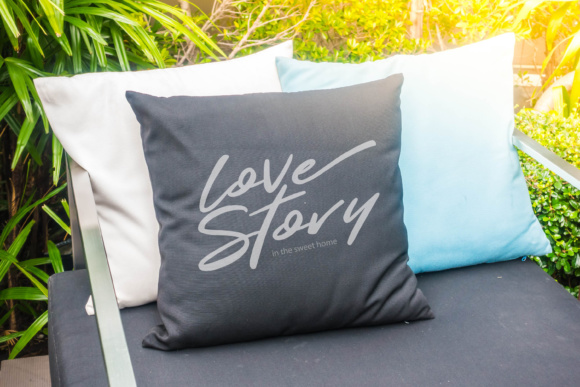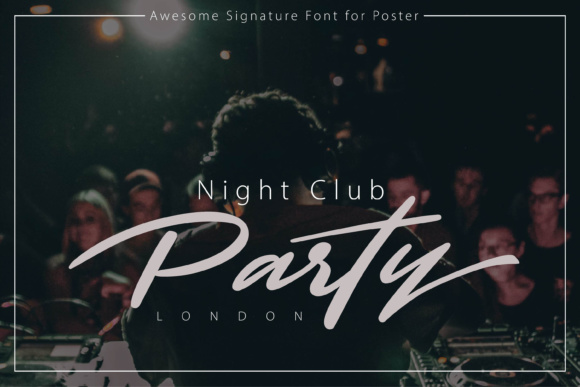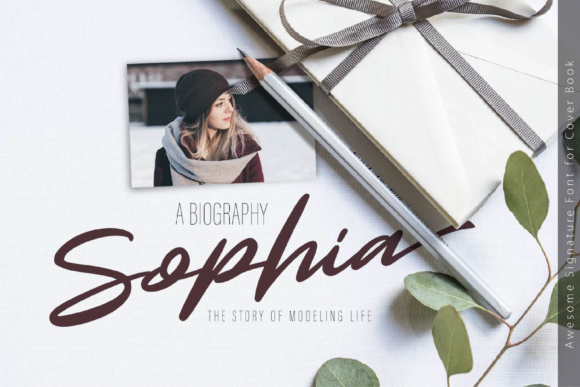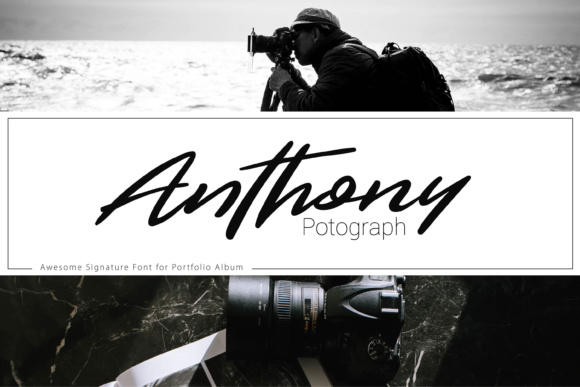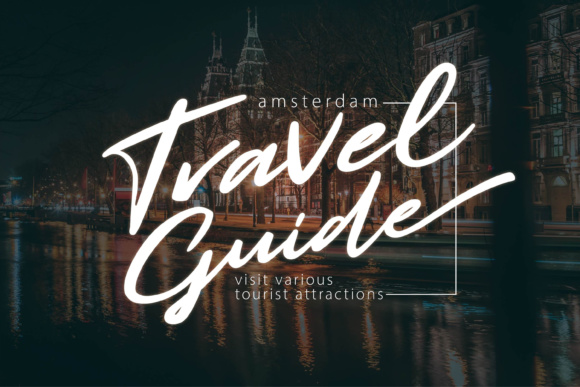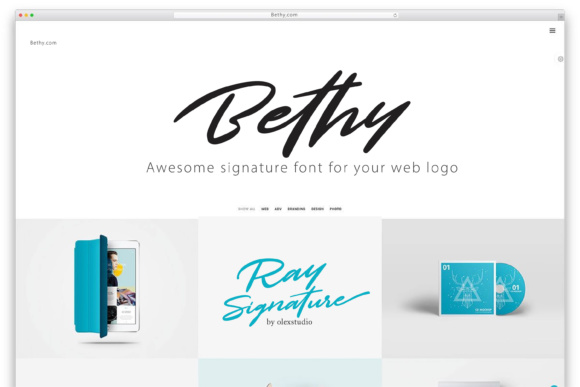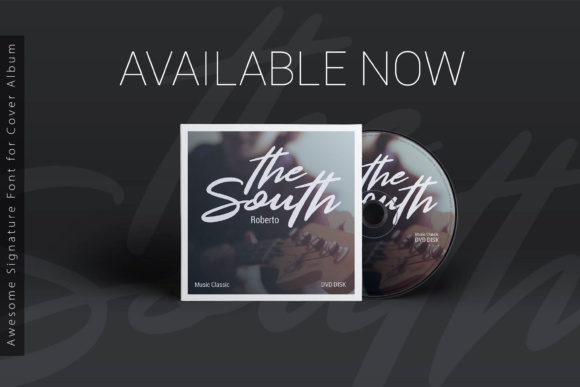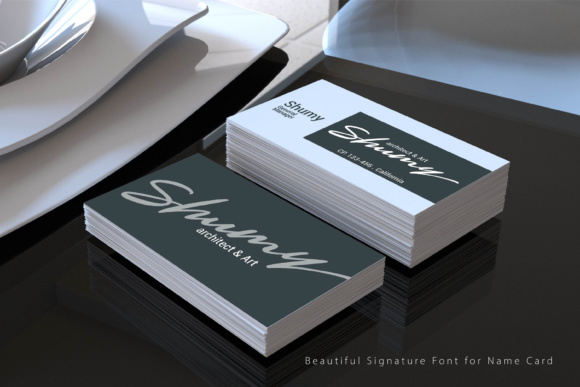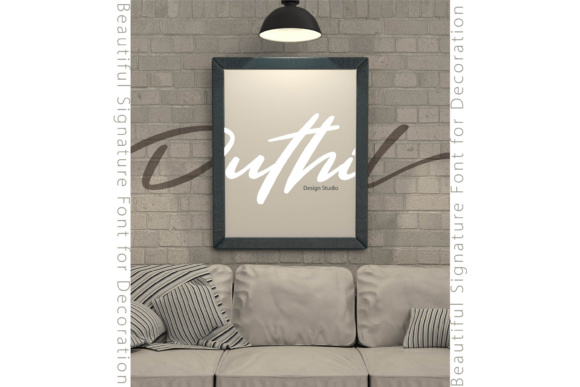
Ray Signature Font
About Ray Signature Font
Ray Signature is a beautiful, modern, handwritten, signature typeface. It will look gorgeous on all your designs, wedding invites, branding materials, logo’s, t-shirt, poster, business cards, quotes and all project design other.